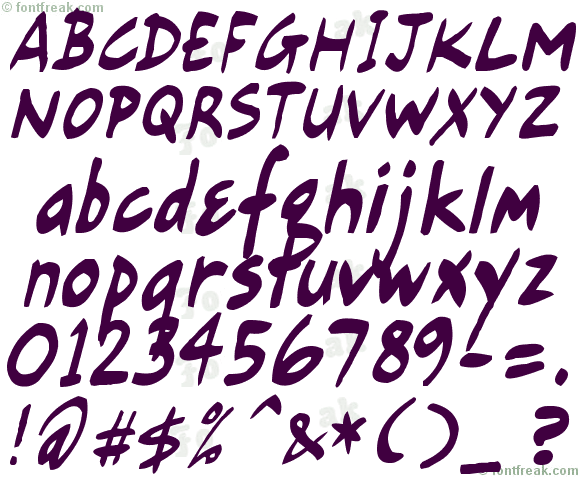
Gort's Fair Hand Regular
About Gort's Fair Hand Regular
Gort's Fair Hand Regular is a distinctive handwritten font that captures the charm of informal, personal writing. Designed by C. Bree Gorton in Yorkshire, England, this font offers a unique blend of creativity and approachability, making it a fantastic addition to any typographic repertoire. The font features a medium stroke weight with subtle variations, providing a natural, organic feel that mimics the fluidity of hand lettering. Its moderate contrast and well-balanced spacing allow for easy readability, while the playful, slightly irregular shapes of the letters add a touch of whimsy.
This font is particularly well-suited for a variety of applications. Its inviting style makes it an excellent choice for wedding invitations, where a personal touch is desired. It can also elevate restaurant menus, helping to create a warm and welcoming atmosphere. Additionally, Gort's Fair Hand Regular lends itself beautifully to children's book covers, capturing the imagination of young readers. Content creators will find it ideal for social media graphics and blog headers, as it adds a unique flair to online branding.
What sets Gort's Fair Hand Regular apart is its ability to evoke warmth and familiarity, making it perfect for projects that require a human touch. Its unique characteristics allow it to stand out in a crowded font landscape, ensuring that whatever you create with it will leave a lasting impression.